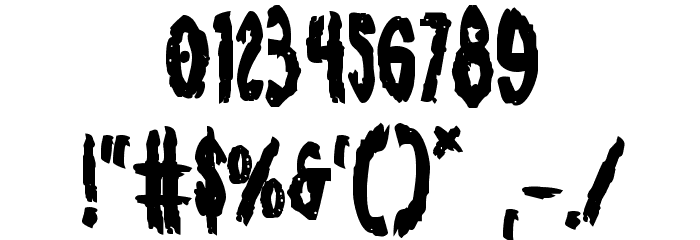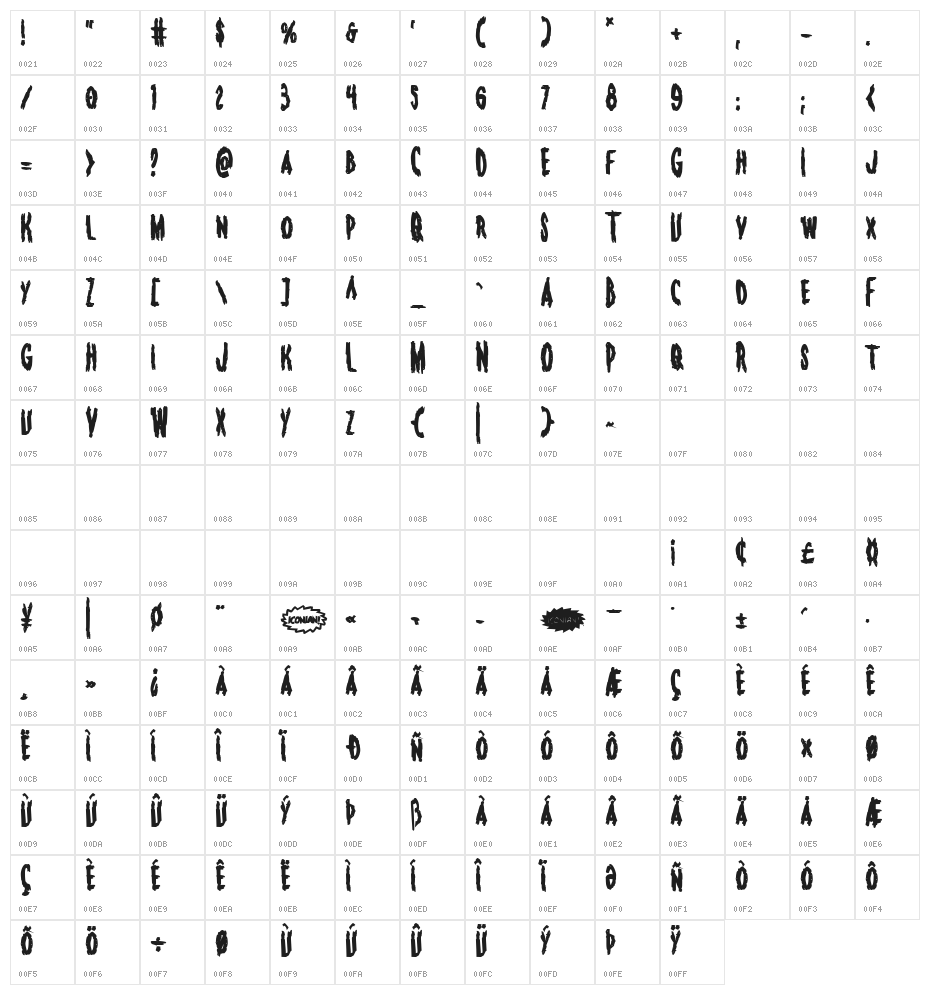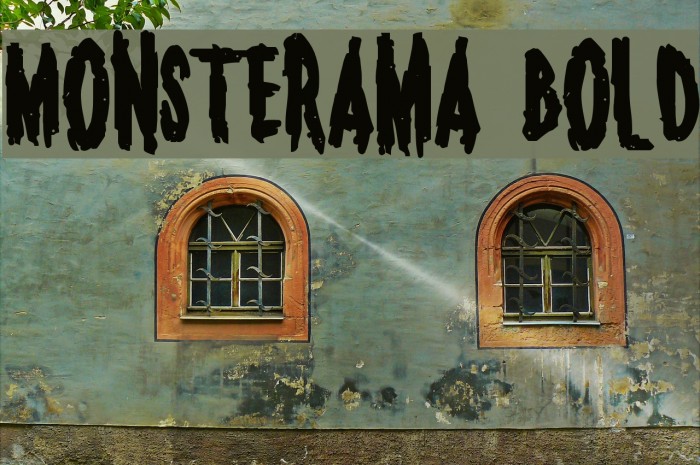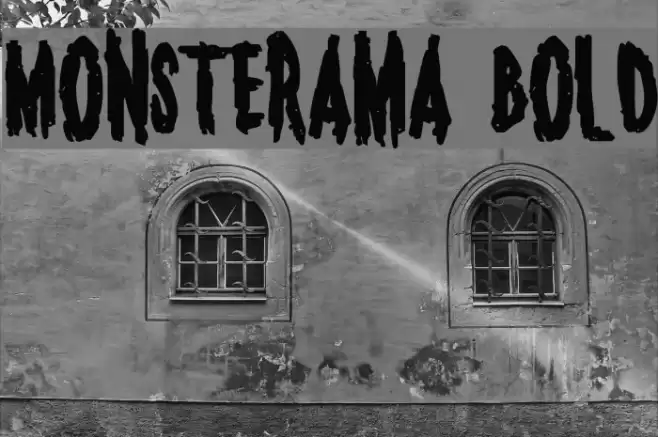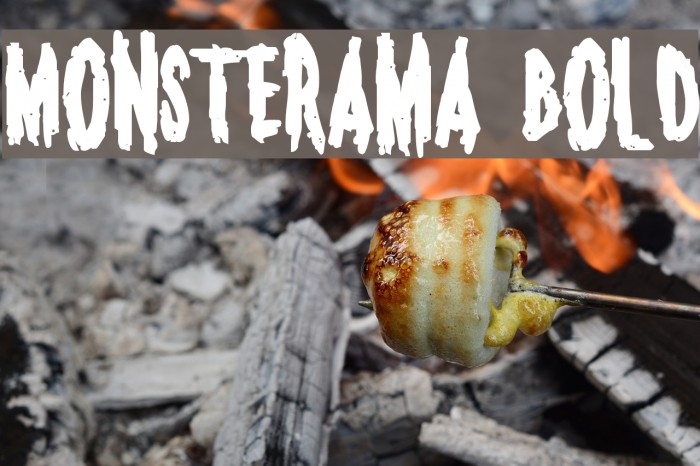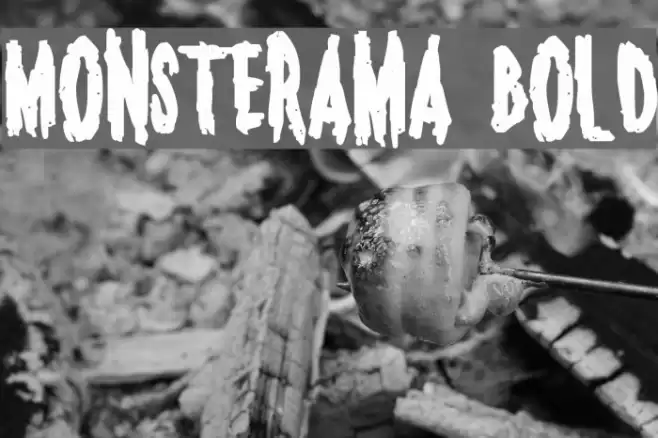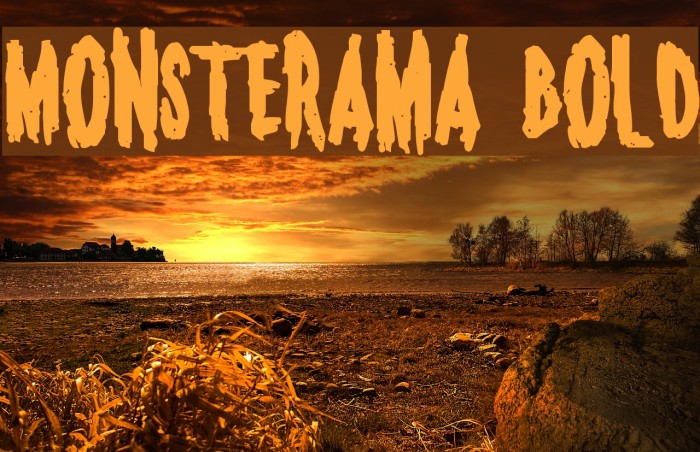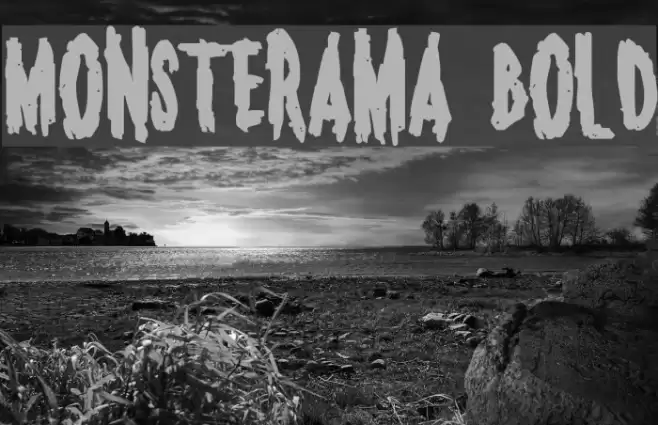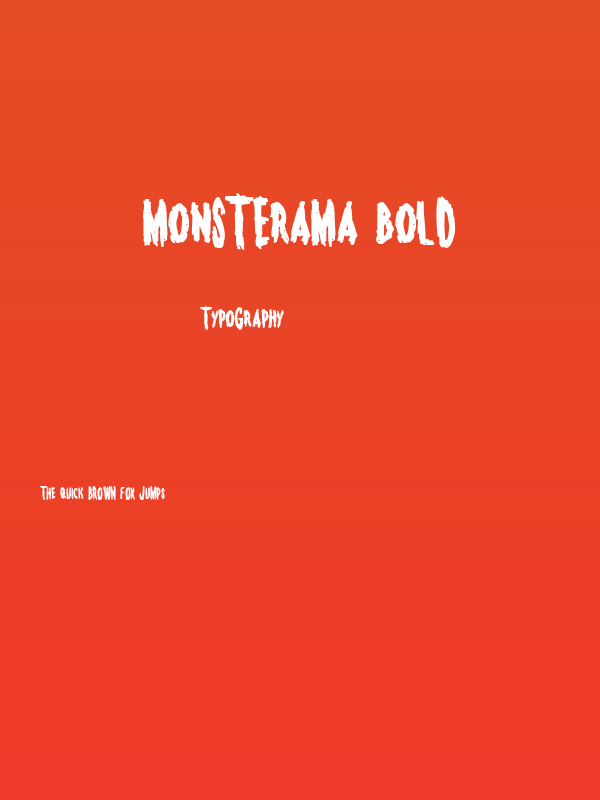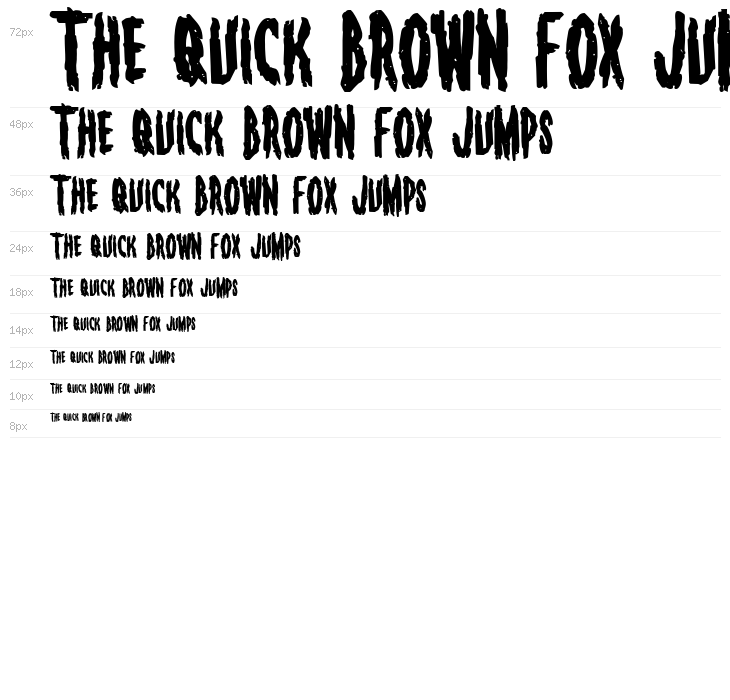
Monsterama Bold Font
Monsterama Bold Description
This font features a bold and rugged design with a distressed, grunge-like appearance. The characters are irregular and jagged, giving off a raw and edgy vibe. The uppercase and lowercase letters maintain a consistent style, with thick strokes and uneven edges that create a sense of movement and energy. The numbers and special characters follow the same aesthetic, making the font suitable for designs that require a bold and impactful statement. Its unique style is reminiscent of horror or thriller themes, making it ideal for projects that aim to capture attention with a dramatic flair.
| Proposed Projects | Ideal for horror movie posters, Halloween event flyers, edgy album covers, and bold graphic designs. |